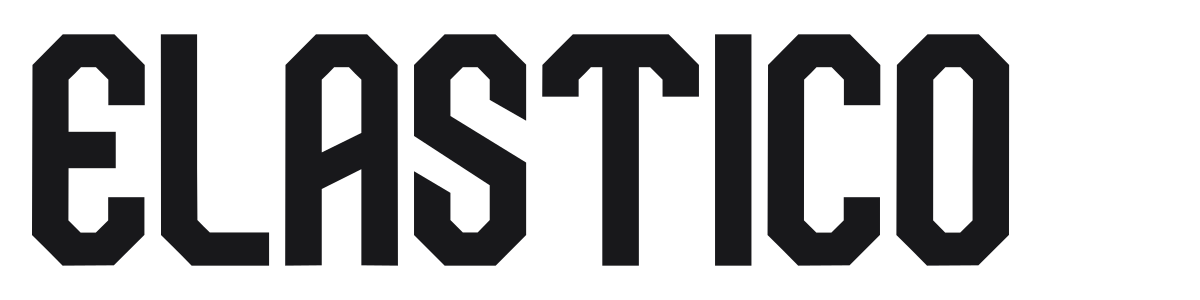
Elastico
Elastico is a condensed geometric display font built on bold, angular forms with distinctive notched joints and flat-cut terminals. The faceted construction gives it a retro-modern character that reads somewhere between Art Deco and contemporary sports branding. It hits hard at large sizes and suits any context demanding presence and attitude.